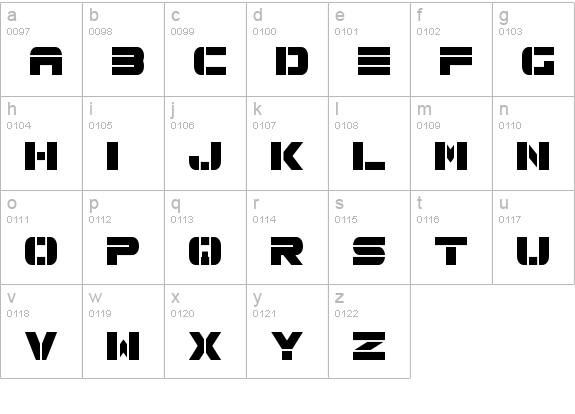
Spac3 tech Font Details
Introducing Spac3 Tech Font, a cutting-edge typeface that embodies the perfect blend of futuristic aesthetics and technological sophistication. Designed with sleek lines and sharp edges, this font exudes a sense of innovation and forward-thinking. Spac3 Tech Font is not only visually captivating but also highly versatile, making it suitable for a wide range of creative projects. Whether you're designing a high-tech logo, crafting a futuristic poster, or creating a sleek user interface, this font will effortlessly elevate your work to the next level. One of the most remarkable features of Spac3 Tech Font is that it is available for free. Yes, you read that right – you can download this font without spending a dime. At FontsMarket.com, you can freely access and download Spac3 Tech Font, empowering you to bring your creative visions to life without any financial constraints. With its seamless compatibility across various design software and platforms, Spac3 Tech Font ensures a hassle-free experience, allowing you to focus on unleashing your creativity. Whether you're a professional designer, a hobbyist, or a student, this font is the perfect tool to express your ideas with a touch of futuristic elegance. So, what are you waiting for? Embrace the future of design with Spac3 Tech Font. Download it for free now at FontsMarket.com and embark on a journey of limitless creativity.